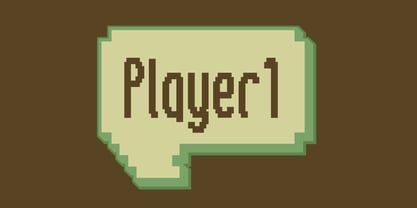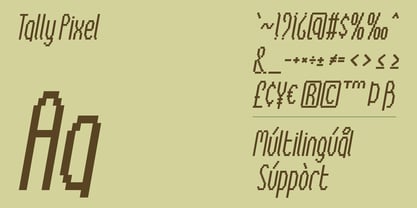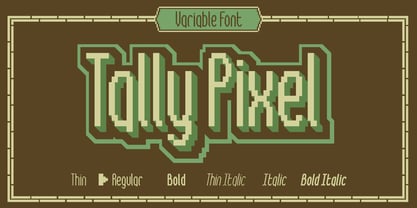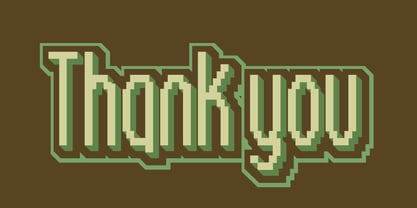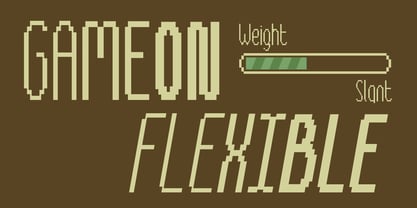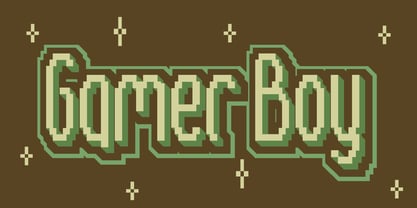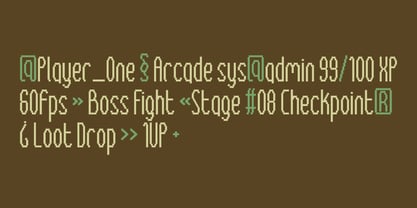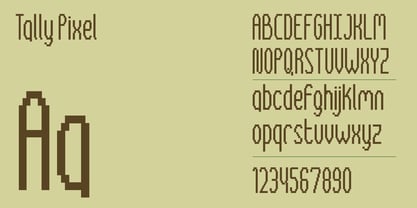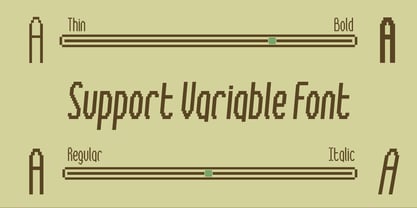
Tally Pixel
La familia tipográfica Tally Pixel fue diseñada por Fadli Ramadhan Iskandar y publicada por Attype Studio. Tally Pixel contiene 1 estilos. Más información sobre esta familia
Tally Pixel - Retro 8-Bit Variable Font
If your project needs that unmistakable 8-bit look without the usual limitations of pixel fonts, Tally Pixel was built to solve exactly that.
It's a single variable font file that smoothly adjusts across weight and slant, so you're not locked into one static blocky style - dial in the exact weight and tilt your design calls for, from a delicate Thin to a bold, slanted Bold Italic, all while keeping every letterform sharp and game-ready.
Perfect for:
Indie game logos and title screens, retro arcade-inspired branding and merchandise, streaming overlays and Twitch or YouTube gaming channel graphics, 8-bit style UI and HUD text for games, game developer portfolio, nostalgic poster and album art design, and pixel-art adjacent social content for gamer communities.
Features :
- Tally Pixel (Variable Font)
- Ligatures
- Multilingual, US Roman, Latin 1 Support